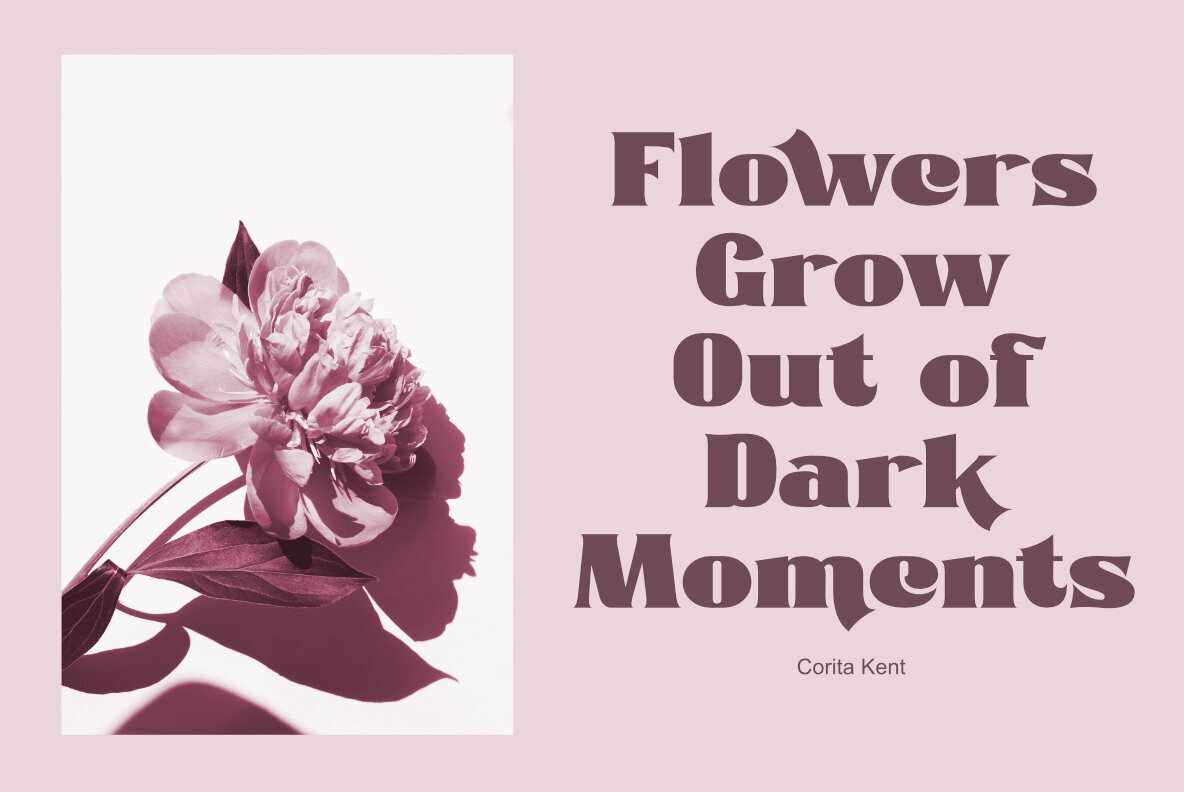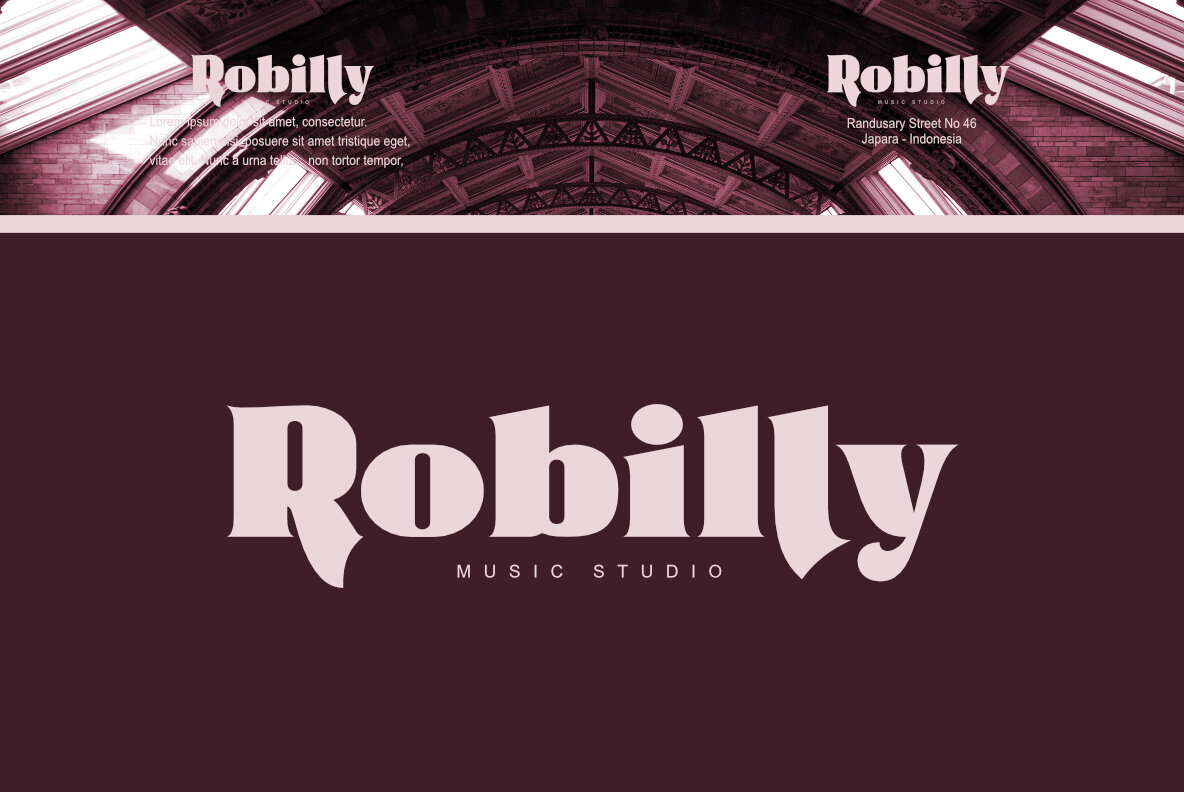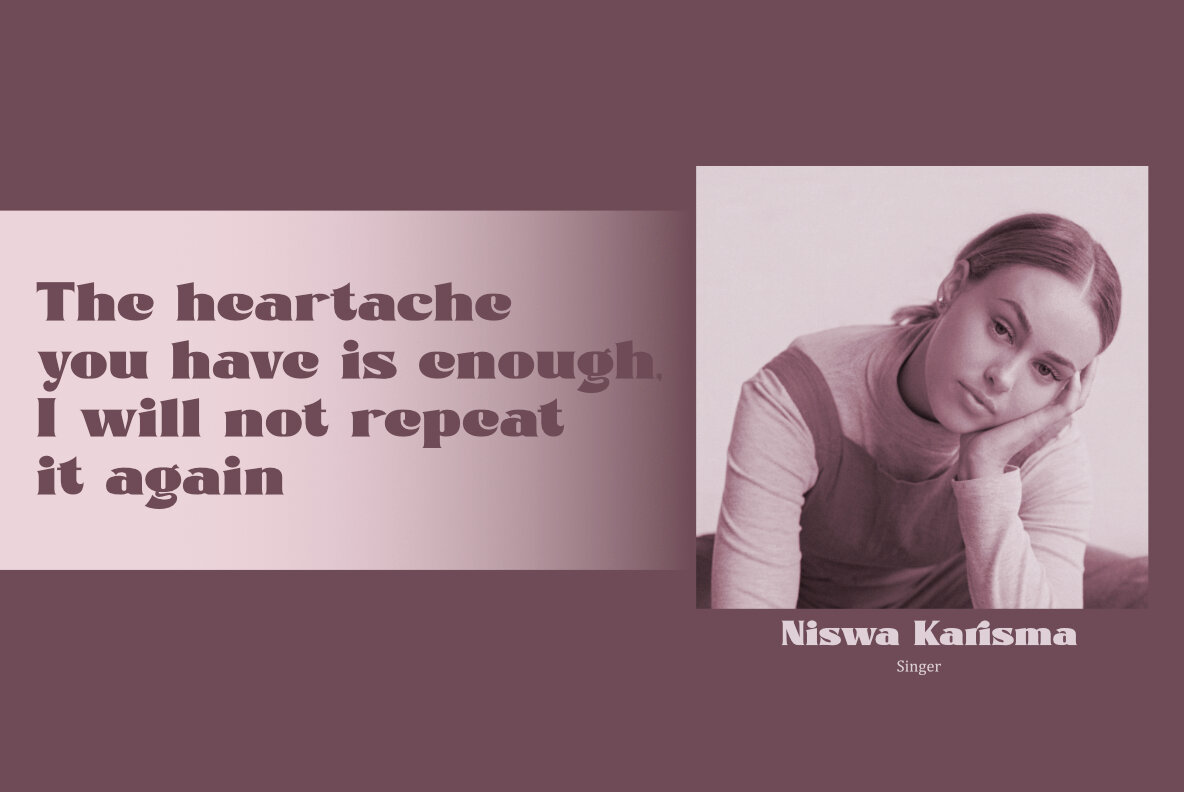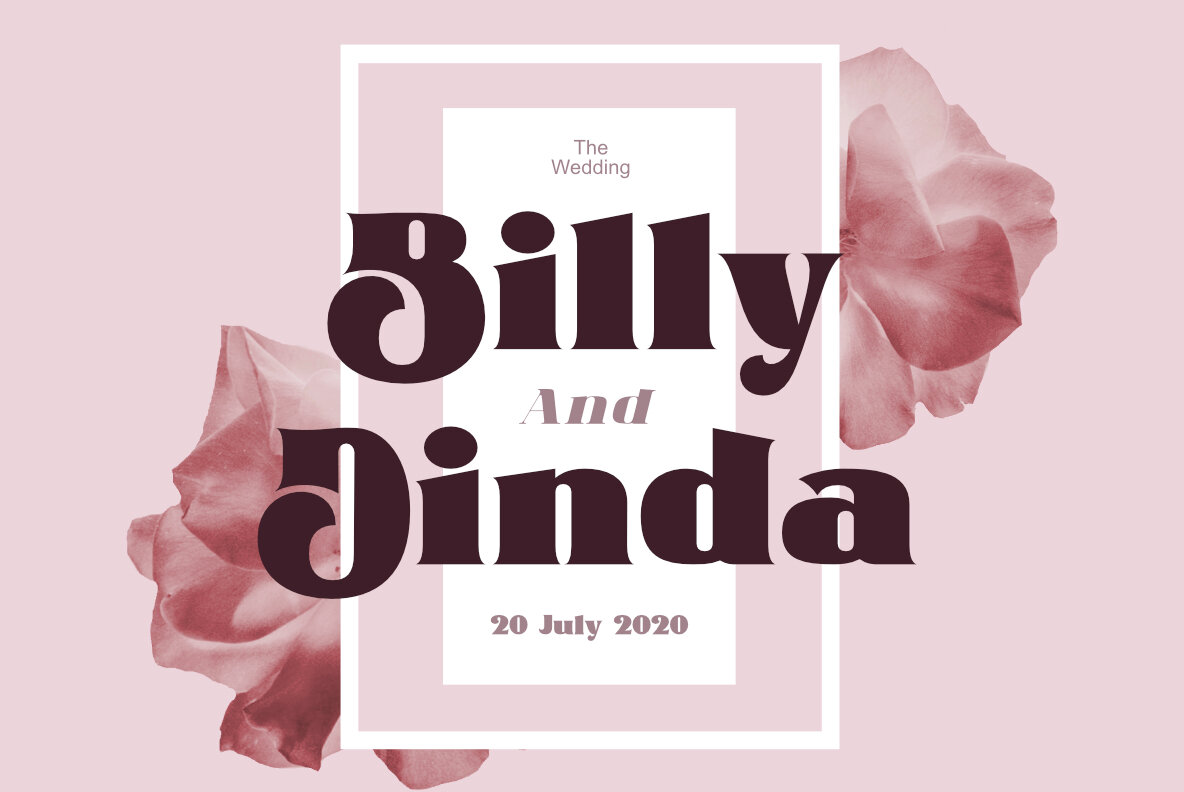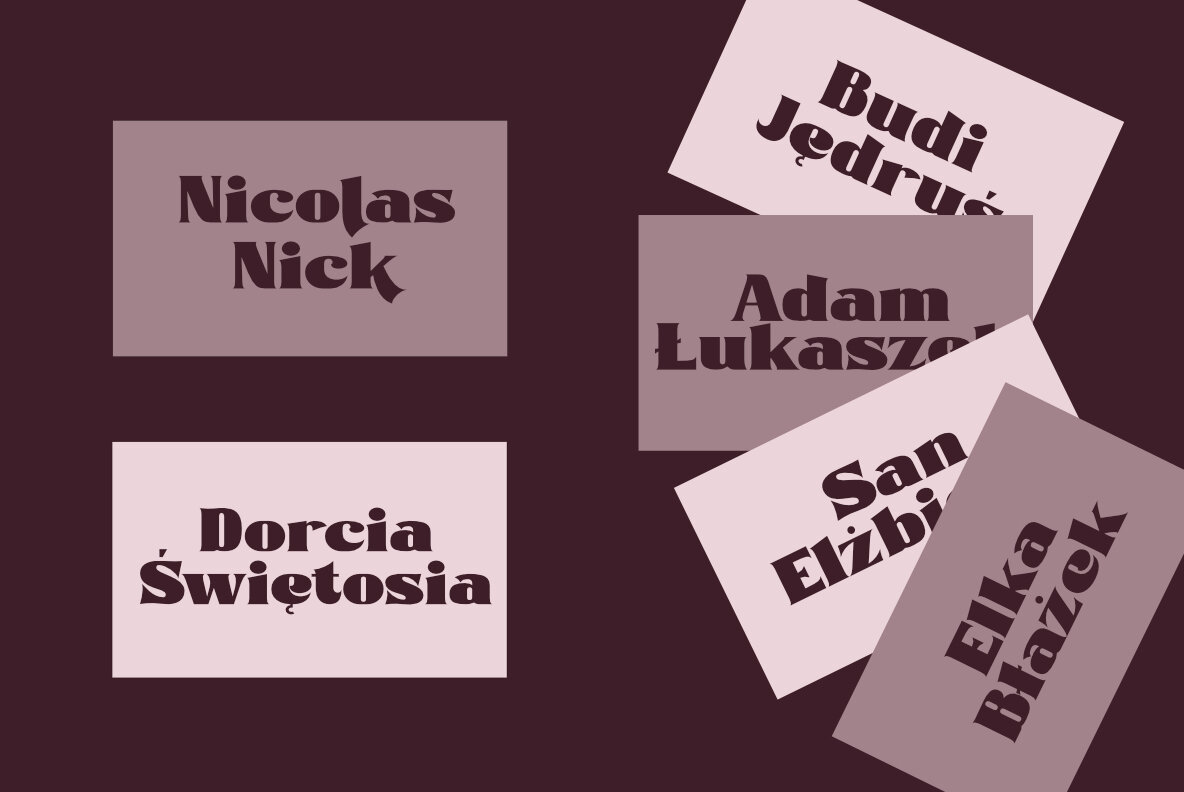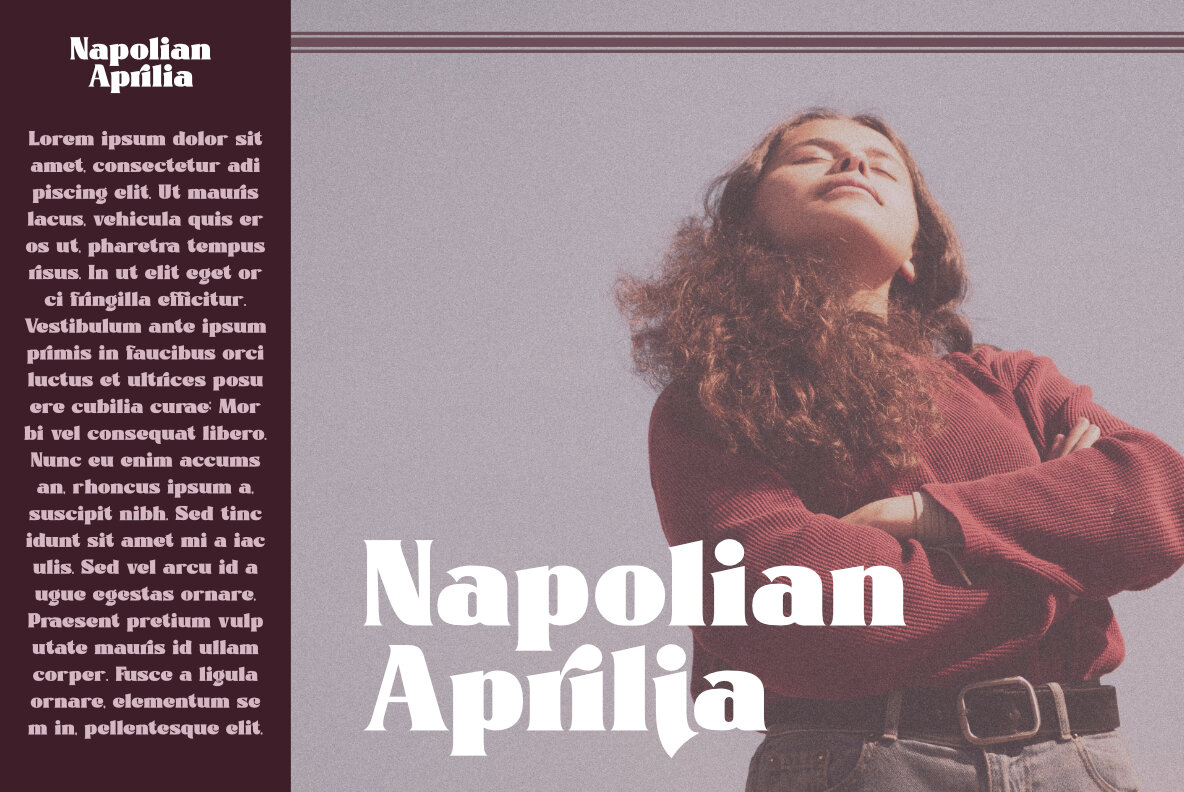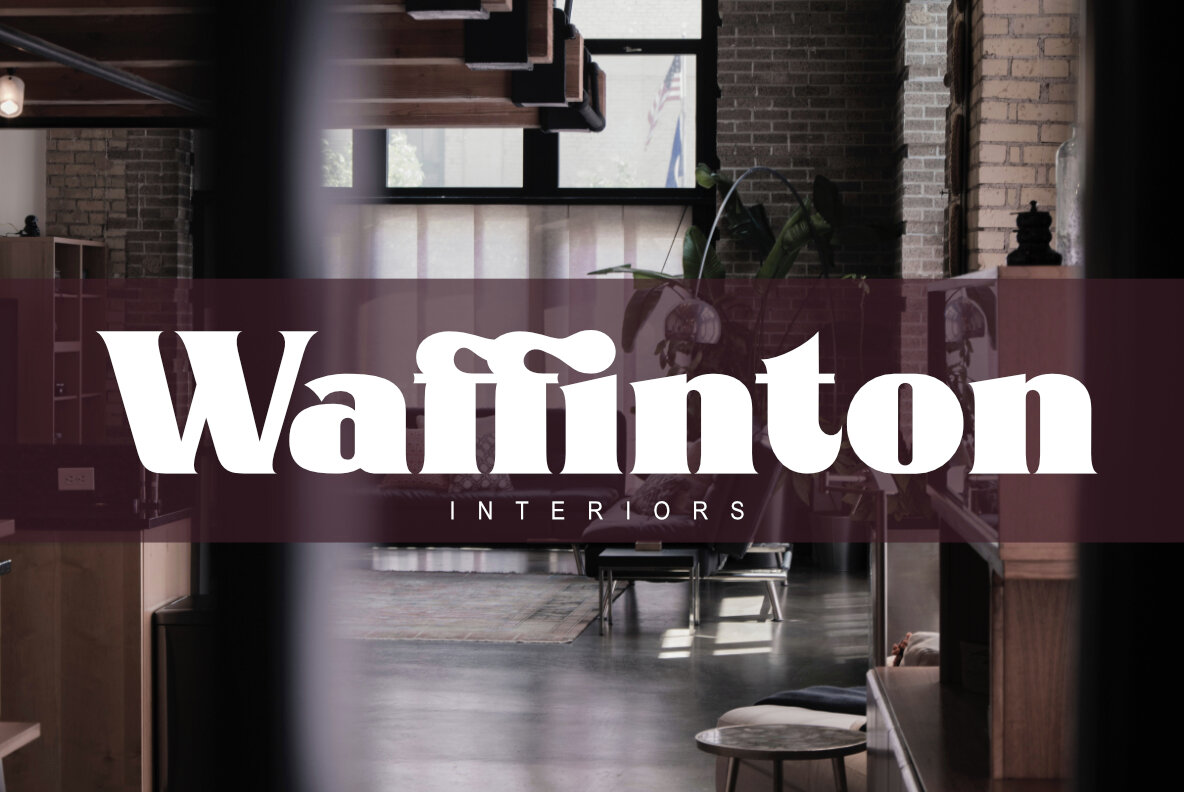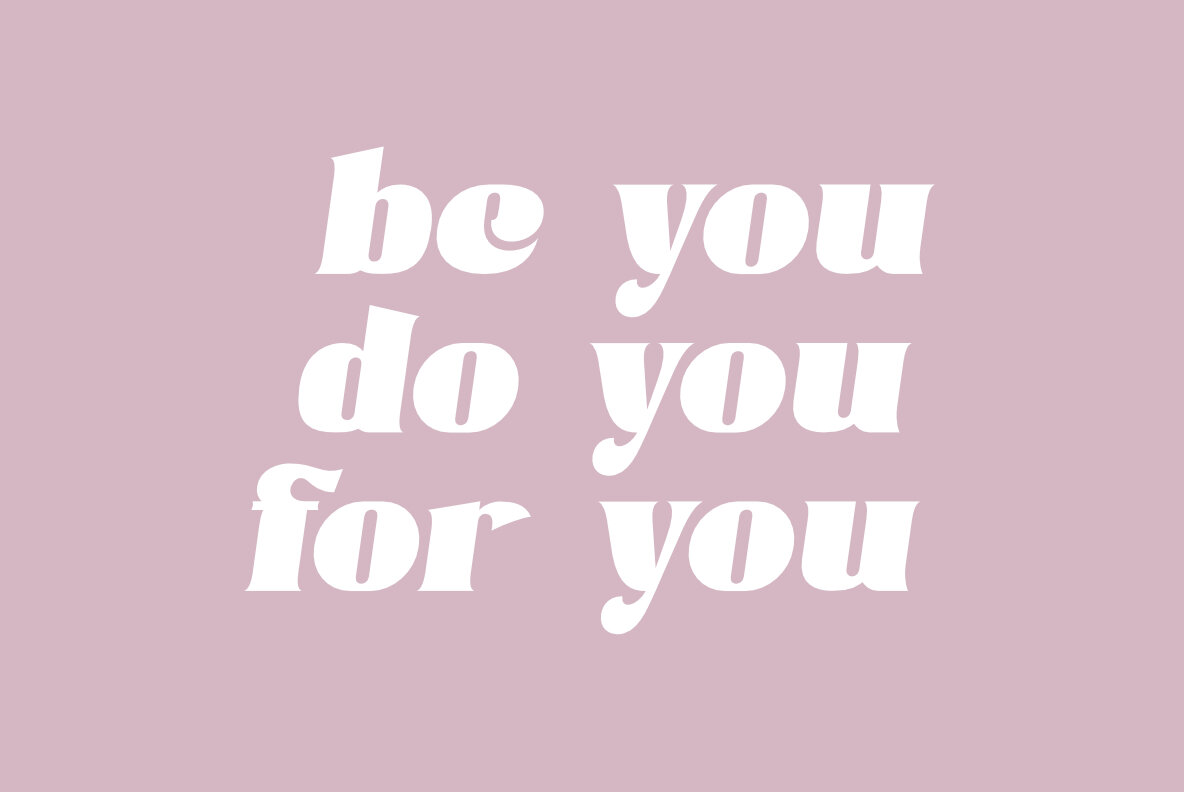
Sila Font
Sila Regular
Sila is a distinctive font that offers an array of elegant alternatives and ligatures, enhancing its charm and making your designs more captivating. With its bold yet smooth form, Sila stands out while maintaining an elegant impression. It is particularly well-suited for applications in logos, invitations, novels, books, magazines, labels, and greeting or wedding cards.Sila: Elegant Typography with Unique Ligatures